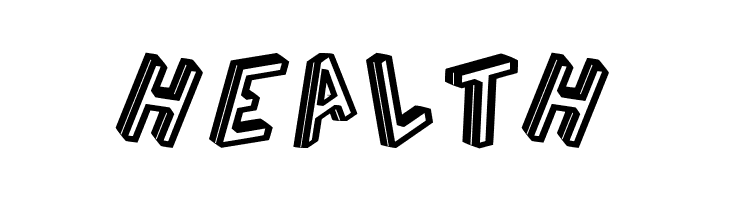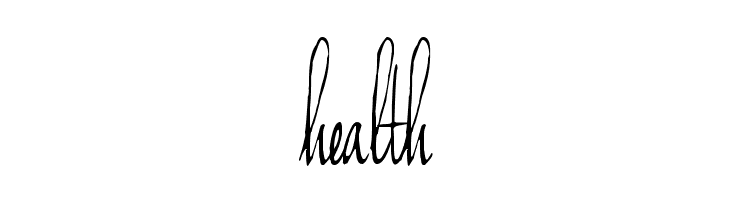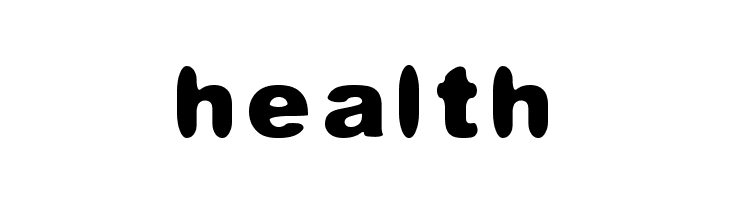
A modern, outline-style font with rounded edges and geometric shapes.
A modern, geometric font with a double-line structure and rounded characters.
A bold, angular font with a tribal and geometric style.
A playful, handwritten font with rounded edges and a casual style.
A whimsical, cursive font with playful loops and swirls.
A whimsical, bold script font with flowing, interconnected letters and decorative swashes.
A whimsical and playful font with curly, decorative elements.
A playful, hand-drawn font with a bold, outlined style.
A playful, handwritten font with irregular strokes and a casual feel.
A playful handwritten font with a casual and friendly style.
A playful, handwritten font with whimsical loops and curves.
A playful and elegant script font with flowing, cursive letterforms.
A display font composed of iconic beverage and beer brand logo designs.
A bold, dripping font perfect for horror-themed designs.
A playful, handwritten font with rounded, consistent strokes and a casual vibe.
A casual, textured handwritten font with a playful and informal style.
A playful, hand-drawn font with bold, irregular letterforms and a whimsical style.
A bold, hand-drawn font with a rugged, distressed appearance.
A bold, rugged, hand-drawn font with a distressed texture.
A cursive, handwritten font with elegant loops and swashes.